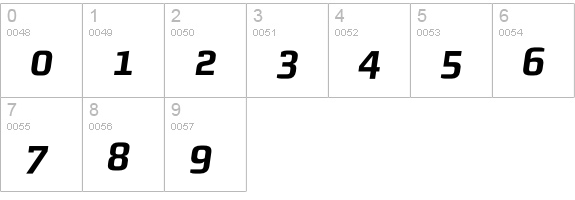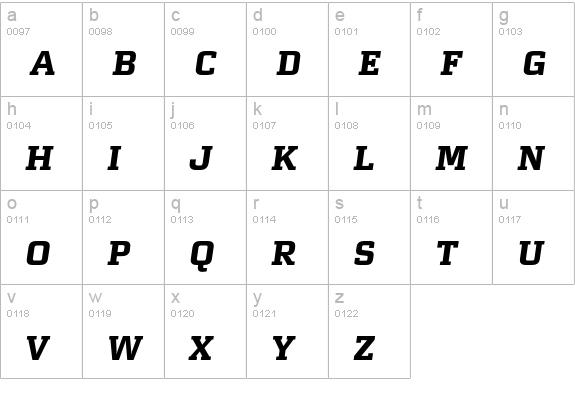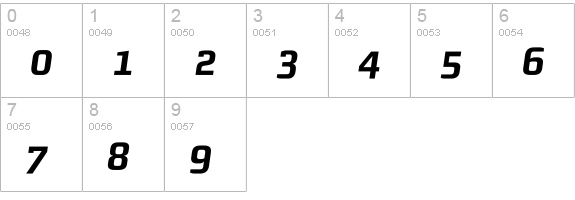
MorganAvec Bold ItalicExpert is a strong, high-contrast variant in the MorganAvec typeface family \xE2\x80\x94 well suited to headlines, attention-grabbing titles, and strong calls-to-action.
MorganAvec Bold ItalicExpert font is a stunning and versatile typeface that exudes elegance and sophistication. With its bold and italic style, this font is perfect for adding a touch of modernity and flair to any project. The sleek curves and sharp edges of MorganAvec Bold ItalicExpert make it a standout choice for headlines, branding, and graphic design. The best part? MorganAvec Bold ItalicExpert font is available for free download at FontsMarket.com. Whether you're a designer looking to elevate your creations or a business owner in need of a fresh new look, this font is sure to impress. Don't miss out on the opportunity to enhance your designs with this beautiful typeface. Download MorganAvec Bold ItalicExpert today and take your projects to the next level!